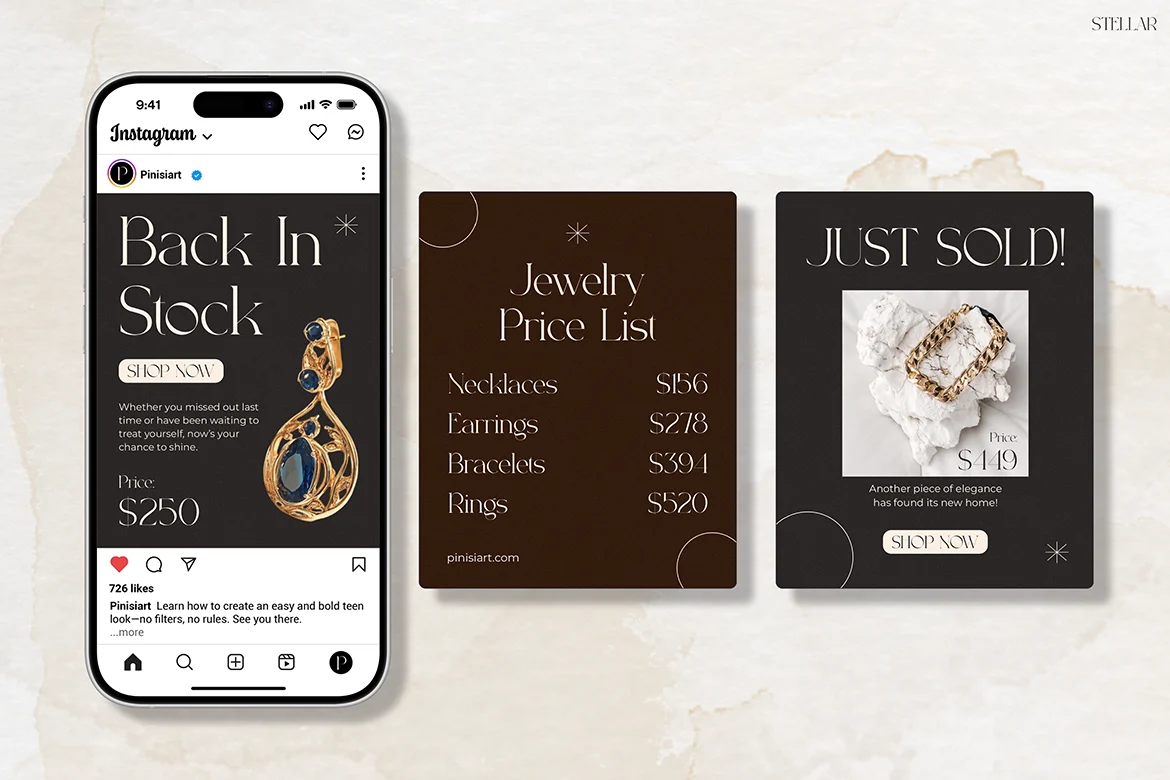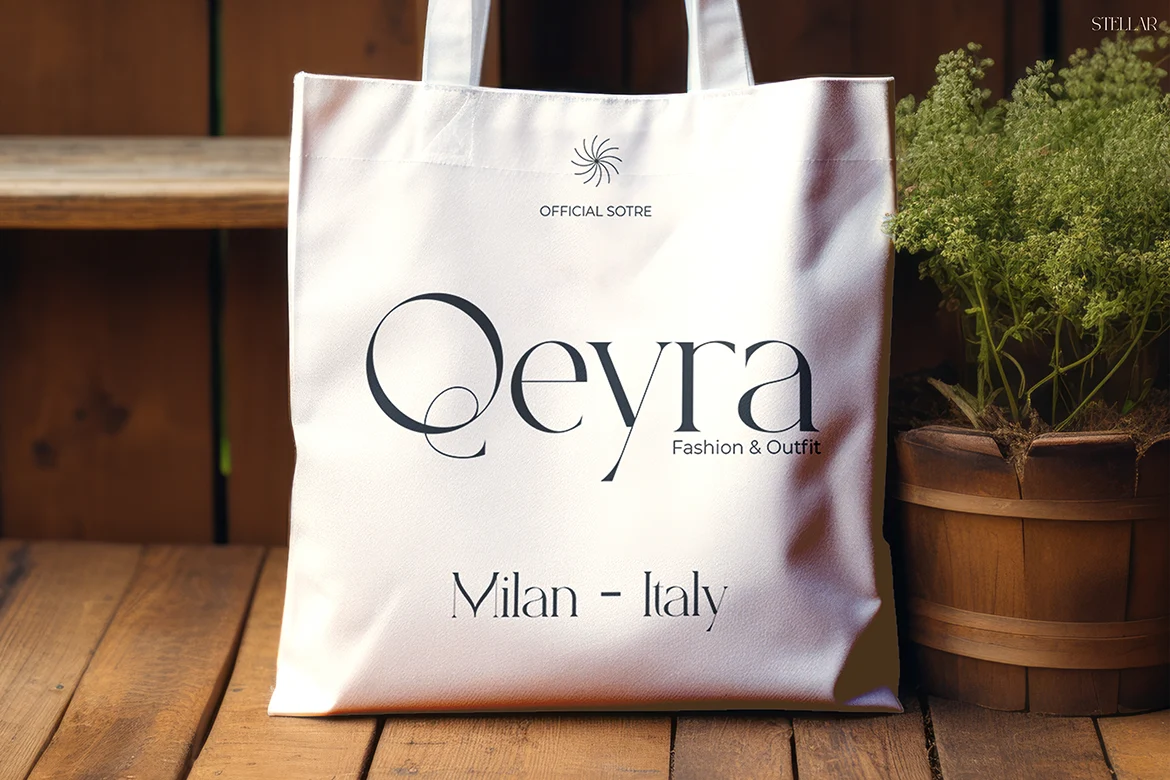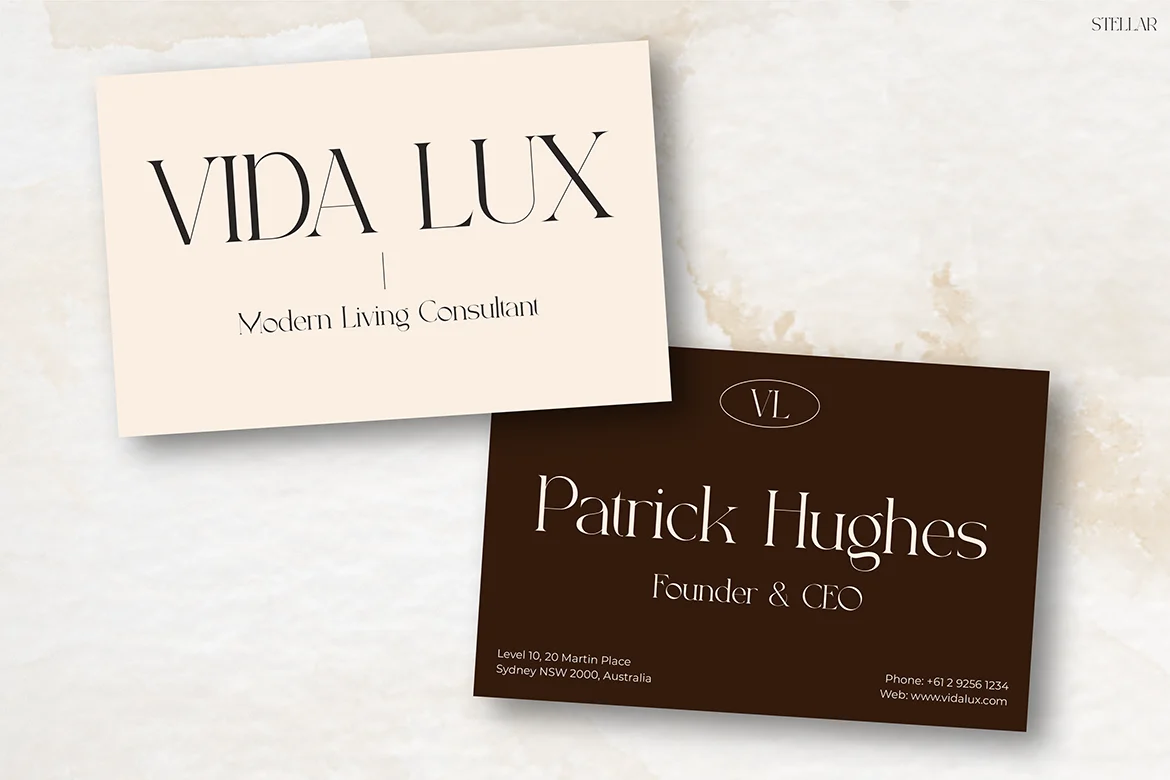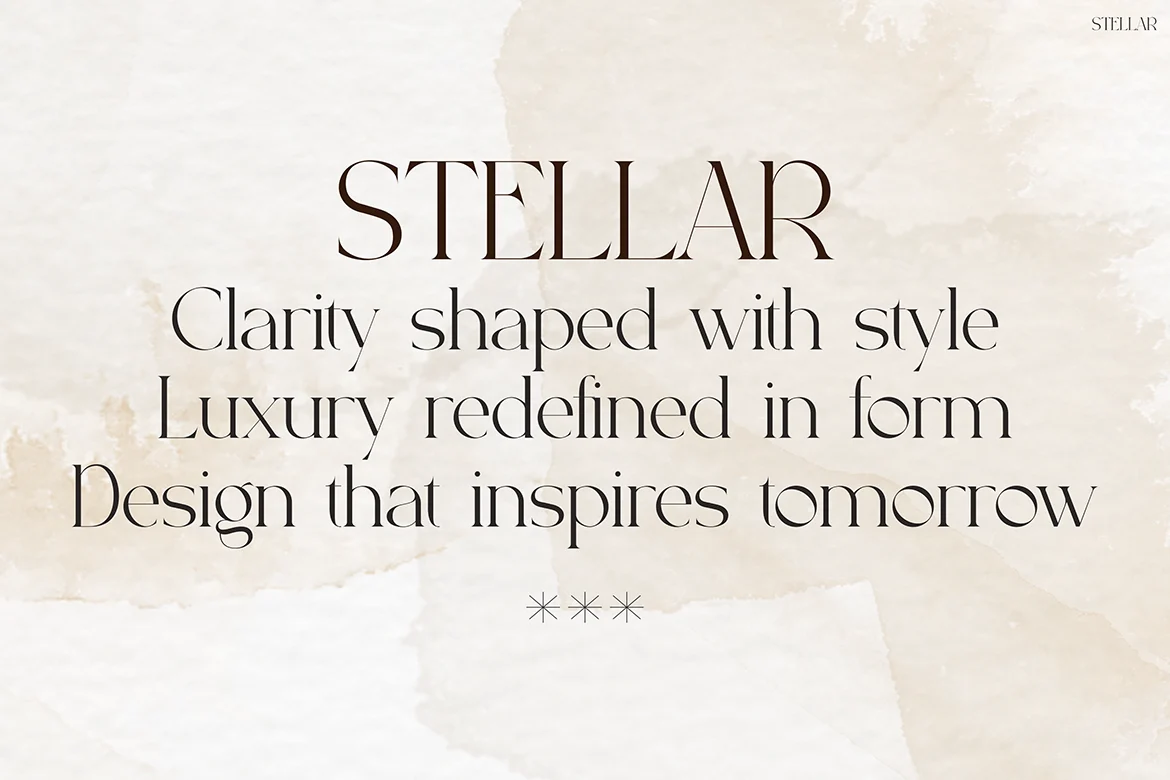
Stellar – Modern Luxury Font
Stellar – A sophisticated serif crafted for fashion, lifestyle, and storytelling
Stellar is a refined serif typeface designed with high contrast strokes, graceful terminals, and modern proportions. Its elegant structure captures both strength and delicacy, creating a timeless look that resonates with fashion magazines, lifestyle branding, and high-end packaging. With a balanced rhythm and clarity, Stellar offers sophistication in every detail, perfect for brands that want to communicate luxury and credibility.
From Instagram posts to editorial spreads, Stellar provides the visual authority to stand out. Its expressive serif forms make headlines unforgettable, while its versatile character set works beautifully across logos, packaging, and digital experiences. Designers seeking a font that conveys prestige and artistic refinement will find Stellar to be a powerful tool for shaping meaningful brand stories.
- Strong contrast gives eye-catching elegance in titles and logos.
- Clean proportions ensure readability in both print and digital use.
- Sharp yet graceful terminals add personality without losing balance.
- Works seamlessly for fashion branding, editorial layouts, wedding invites, and packaging.
- Perfectly adaptable for social media graphics, posters, and marketing campaigns.
Bring elegance and timeless character to your next project with Stellar. Whether you’re designing for fashion, branding, or storytelling, this typeface ensures your message shines with sophistication. Download Stellar today and elevate your creative work with a touch of luxury that leaves a lasting impression.